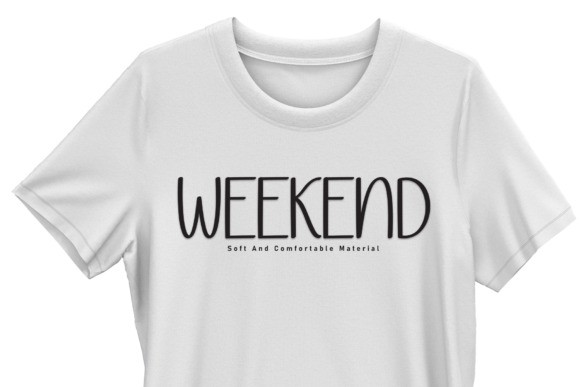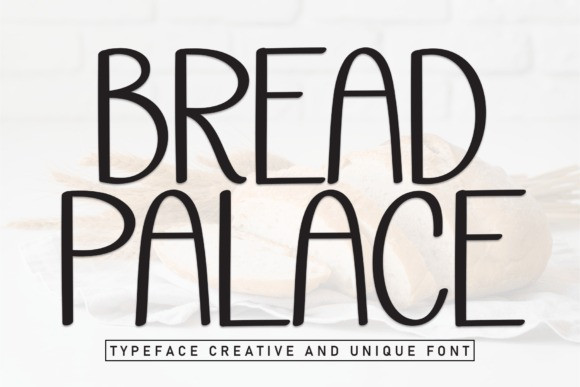
Bread Palace Font
Bread Palace Font is a sweet and friendly sans serif font. Cute and fun, this font is ideal for writing wedding invitations, cards, or any other design that might need a casual touch!